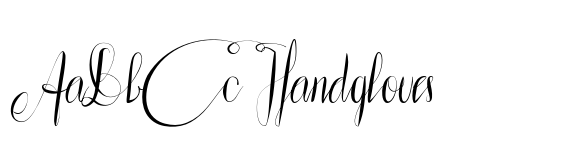
Conspired Lovers
by Harald Geisler
The Conspired Lovers Font Family was designed by Harald Geisler and published by Harald Geisler. Conspired Lovers contains 1 styles. More about this family
Conspired Lovers is based on five years of love-letter writing. A font to capture the intentions of love letters more than any other font. How did the Project start? In the last five years I wrote love letters with two persons. I became used to the joy of handwriting with ink and nib on fine paper. Through practice a experimentation my style continuously refined. As life moves on, suddenly I found myself with no one to write love letters to. It's a luxury to have someone to write letters to. Missing the joy of writing and listening to Gregory Porter’s “Be Good”, the decision was made to take this 5 years of writing and make this dance on paper a font. A handwritten typeface for everyone to use. This font was created in July, 2012 and named Conspired Lovers. A font to capture and convey your message in a special way to the beloved one close to your heart. With a long practice of writing crafted into the unique design I hope that you and the recipient of your writing will soon enjoy this design. The Open-type version features 350+ glyphs including alternates and ligatures. All lowercase and most uppercase letters are connected, to create a realistic hand-writing-calligraphy on your creations. Conspired Lovers is international and supports a wide range of eastern european languages with accented letters to reach everyone in Sweden, France, Hungary and almost everywhere around the globe. A trailer for Conspired Lovers can be seen here: http://vimeo.com/haraldgeisler/conspired-lovers If you're looking for more heart related fonts also check out my other fonts.